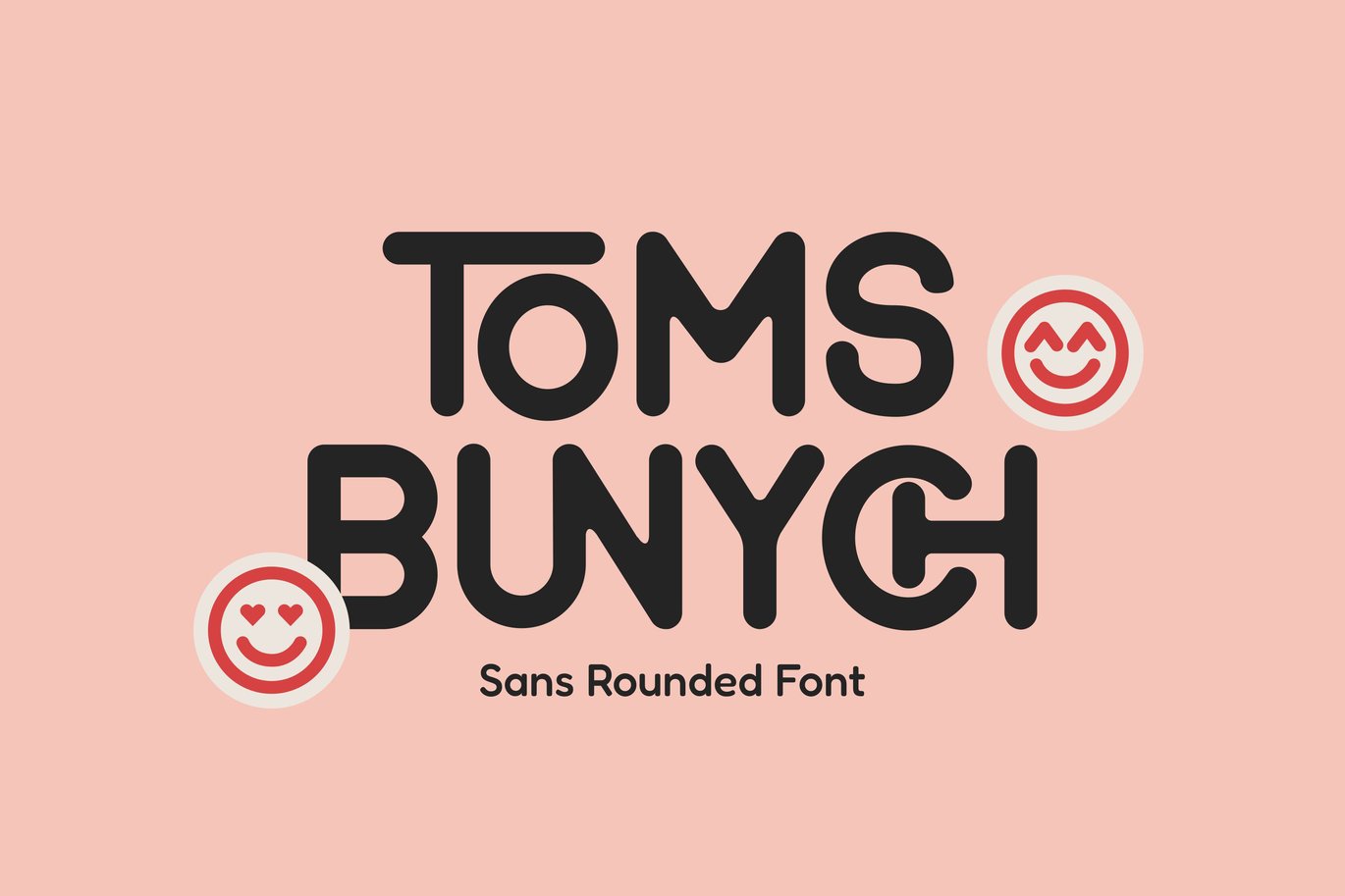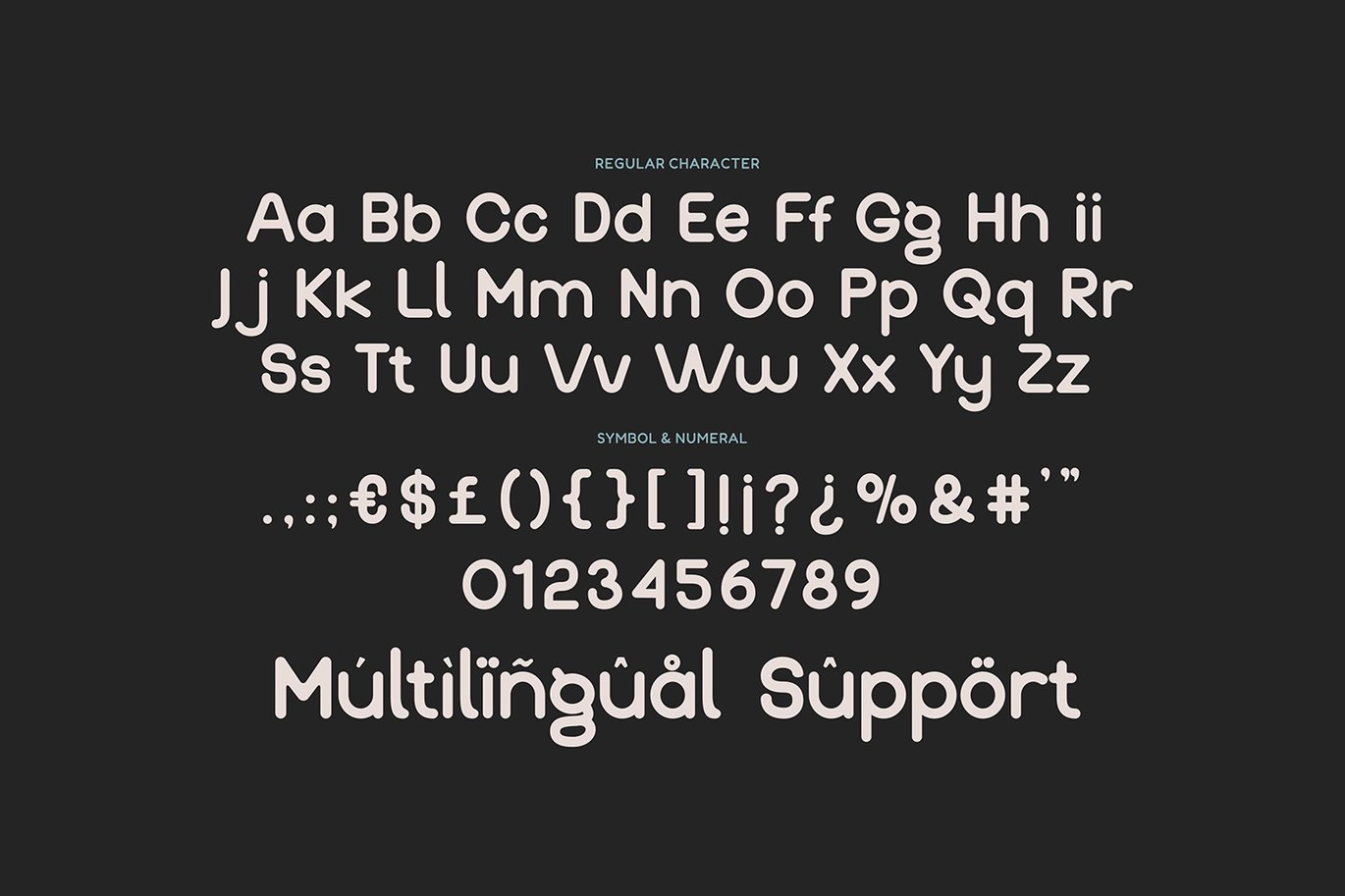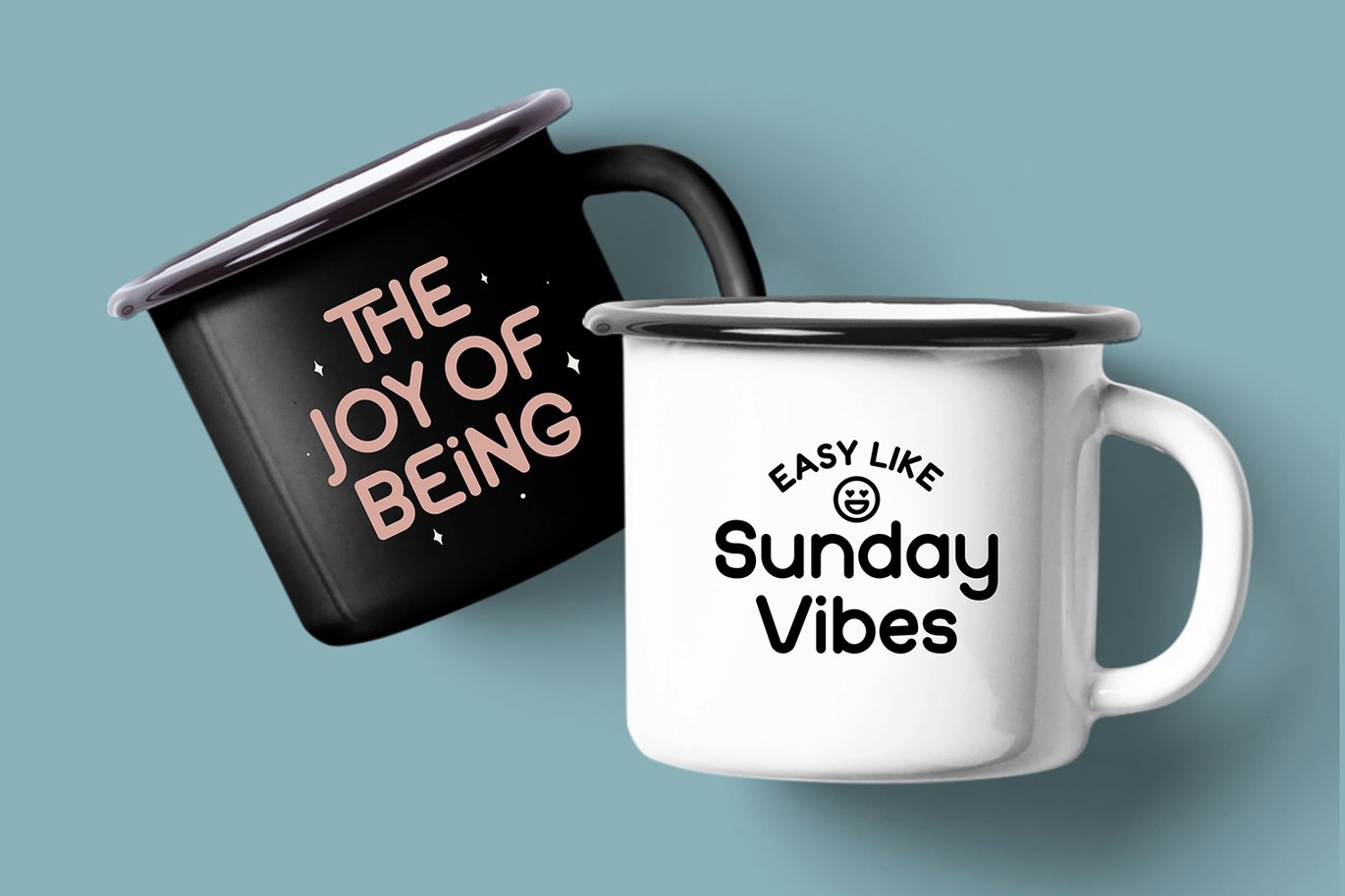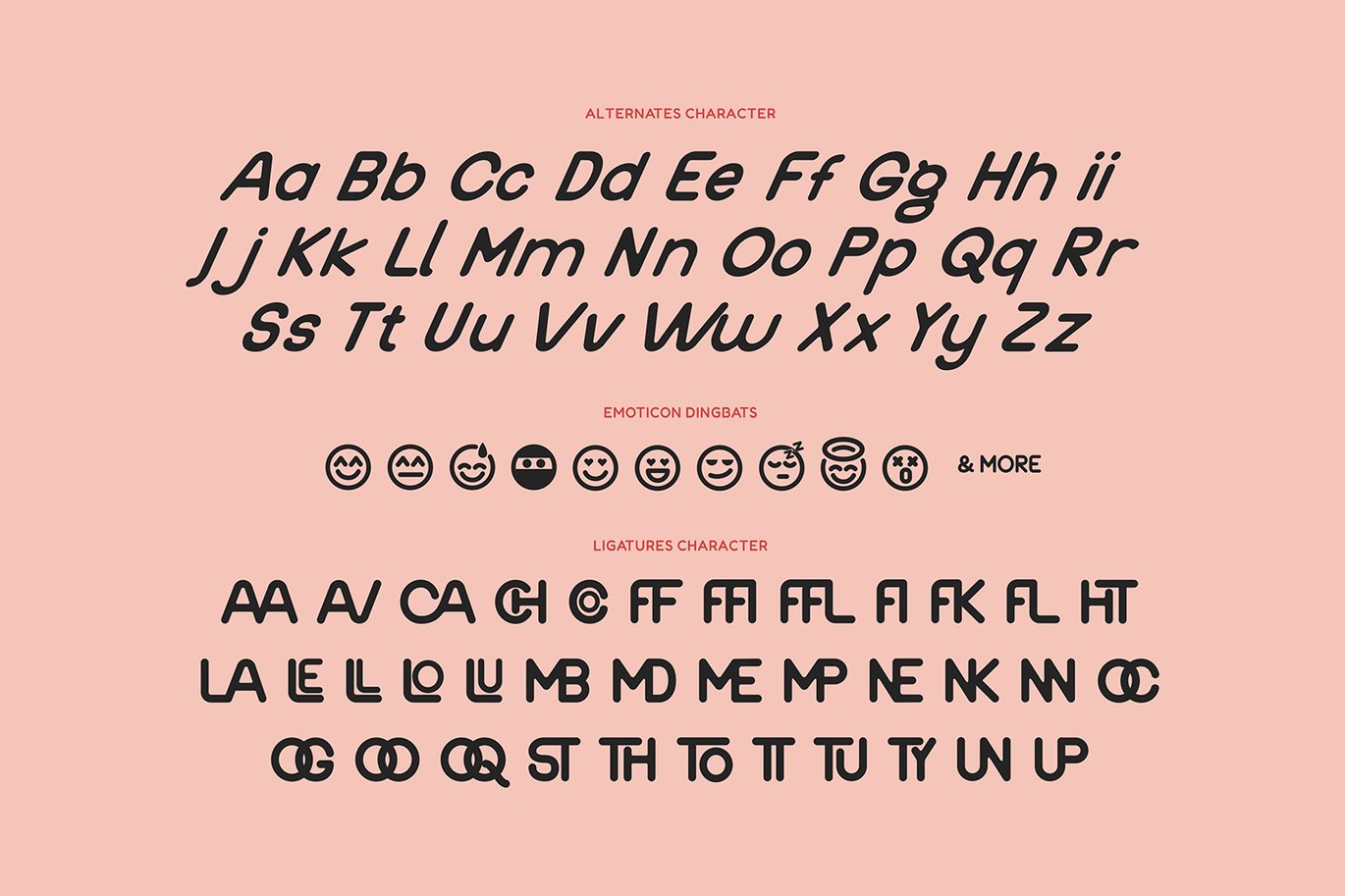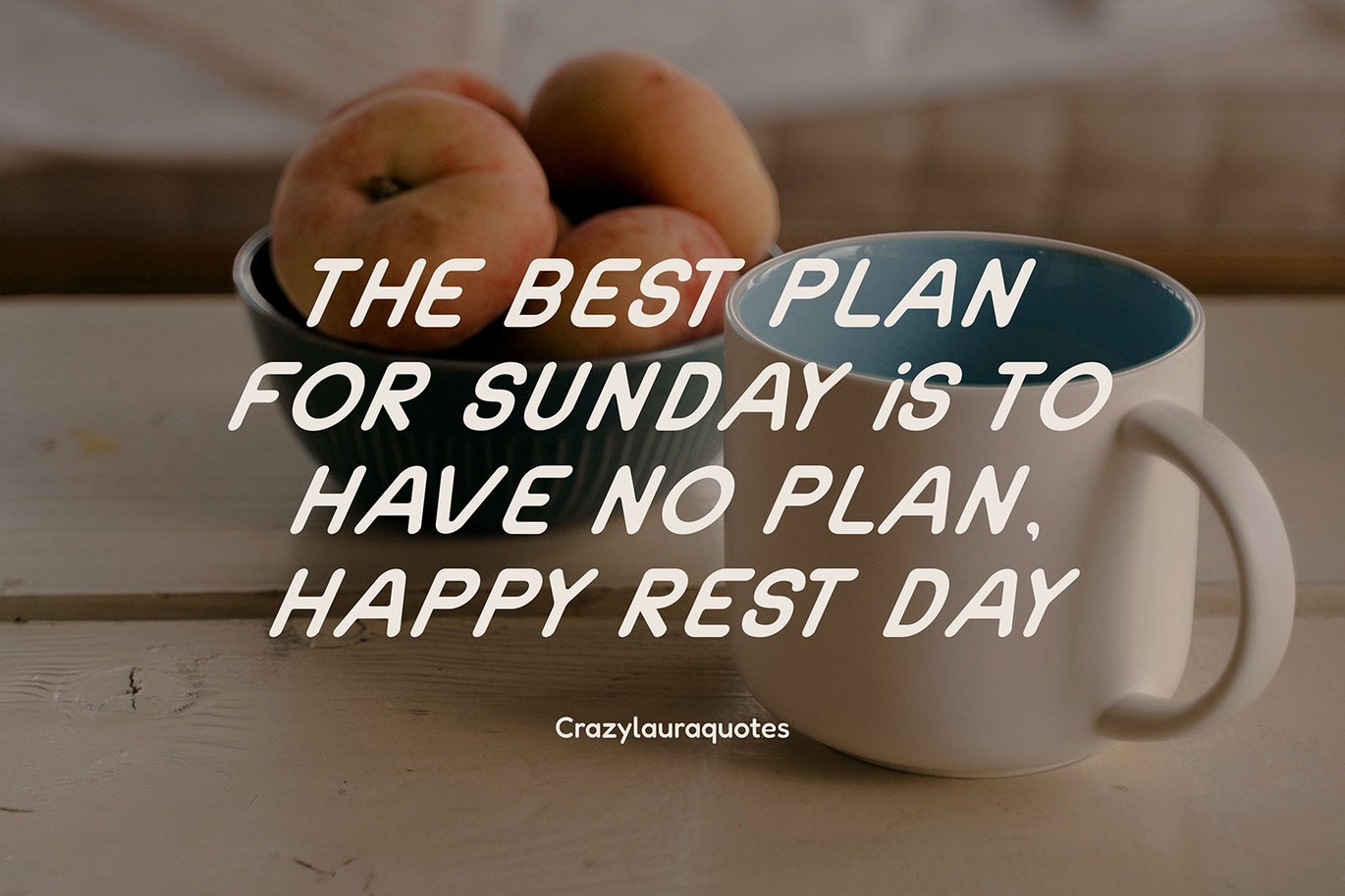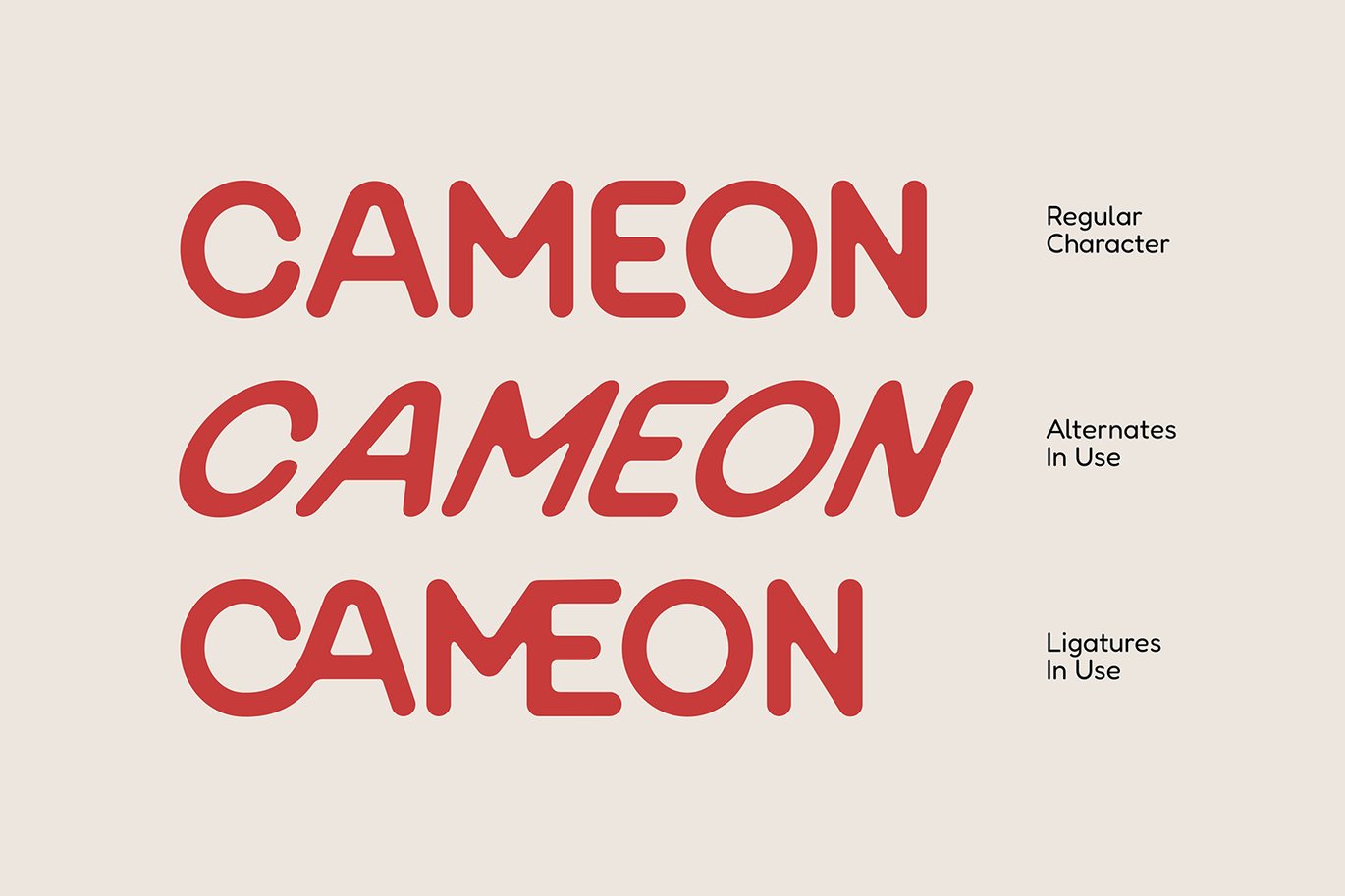
Toms Bunich – Rounded Font
Toms Bunich rounded font that has smooth curves and a visual style a can embodies charm and elegance in every lettering, making your work look stunning and attractive.
A versatile font that works in both uppercase and lowercase sizes, suitable for a wide variety of projects such as a display font for headings, logo fonts, invitations, branding, magazine, photography, card, product packaging, product mockup, mugs, posters, labels, editorials, art deco, and any type of advertising purpose.